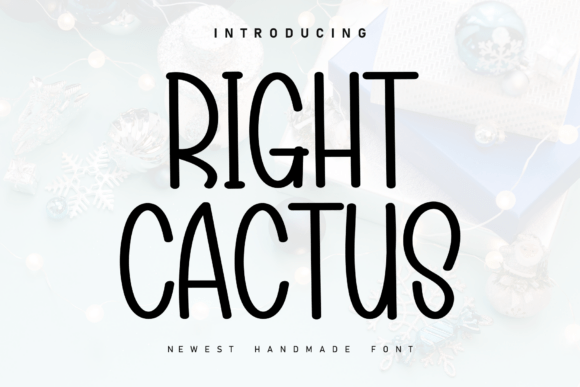
Right Cactus: A Handwritten Font That Makes Your Brand Feel Warm & Real
Last Tuesday, I spent two hours staring at a candle label draft—my third version this month. The scent was lavender + vanilla, the jar was matte white, and the story behind the brand was heartfelt… but the font? It looked like it belonged on a spreadsheet, not a hand-poured soy candle. That’s when I remembered Right Cactus: a handwritten font I’d bookmarked months ago but never tried. I installed it, typed “slow burn,” and felt my shoulders drop. Finally—something that matched the quiet intention behind every product I make.
Right Cactus isn’t flashy or overdesigned. It’s a display font with soft, organic strokes—like ink drawn slowly with a slightly flexible nib. There’s warmth in its curves, ease in its rhythm, and just enough imperfection to feel human. It doesn’t shout. It invites. That’s why it works so well for small businesses where authenticity matters more than polish.
I started using Right Cactus on things that customers actually hold or pause on: the front of my candle labels, the header on my thank-you cards, the “new batch” sticker on shipping boxes, and even the short tagline on my Instagram Story highlights. Each time, it added cohesion—not because it’s loud, but because it’s *consistent*. When your logo, your packaging, and your social posts all share the same gentle handwriting energy, people start recognizing your brand before they even read the words.
Here’s what fits beautifully with Right Cactus:
What surprised me most was how much Right Cactus improved readability—not in the way a crisp sans serif does, but in the way a familiar voice does. On small candle labels (where space is tight), I use it for short names only—“Sage & Sea,” “Midnight Bloom”—and pair it with a clean, light sans serif for ingredients or volume. On digital ads or mobile thumbnails, I keep text minimal and centered: one phrase in Right Cactus, sized generously, with plenty of breathing room. It’s not built for long paragraphs, and that’s okay. As a handwritten display font, its strength is in moments of emphasis—not explanation.
Typography shapes first impressions faster than we realize. A stiff, overly formal font can unintentionally distance customers—even if your products are cozy and kind. Right Cactus helps soften that gap. It signals approachability without sacrificing polish. You’re not choosing a “cute” font—you’re choosing a tone: calm, considered, quietly confident. That consistency builds trust. When someone sees your jar at a local shop, then spots your Instagram post later that day, and then receives your order confirmation email—all carrying the same handwritten rhythm—they begin to associate that feeling with *you*.
For pairing, I keep it simple: Right Cactus shines beside a friendly sans serif like Montserrat Light or Poppins Regular. The contrast feels intentional—not jarring. If your brand leans more elegant (say, a small-batch apothecary), try it with a delicate serif like Cormorant Garamond—it adds grace without competing. And while Right Cactus stands strong on its own as a logo wordmark or headline font, avoid stacking it with other handwritten or script fonts. One heartfelt voice is enough.
It’s easy to overlook typography when you’re juggling inventory, fulfillment, and customer messages. But fonts are silent brand ambassadors—and Right Cactus speaks with sincerity. It hasn’t changed my candle formula or my sourcing. But it *has* changed how people experience my brand: slower, warmer, more personal. Whether you’re printing bakery boxes, designing a boutique tag, refreshing your Etsy banner, or updating your café menu board—this handwritten font doesn’t just look good. It helps your business feel like home.